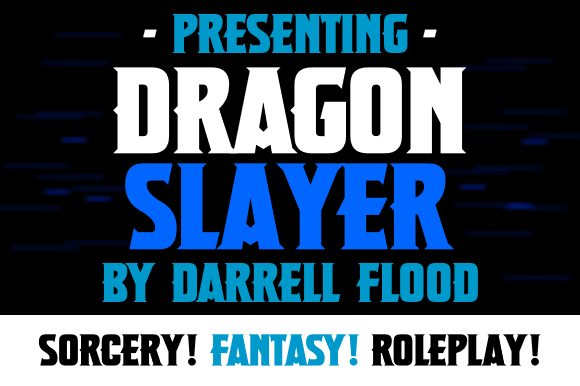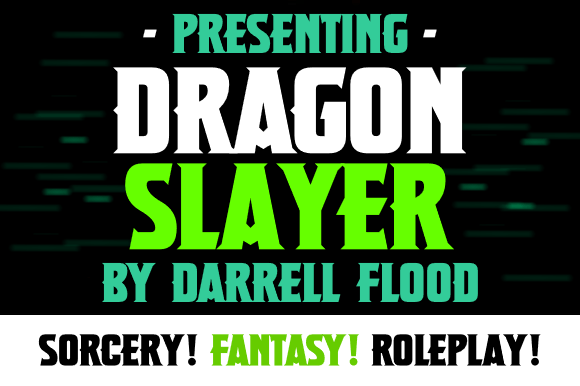
Introduction to Dragon Slayer Font
A bold and striking font with sharp edges, smooth curves and angular cuts.
Perfect for exploring dungeons, battling evil wizards and any fantasy themed setting .